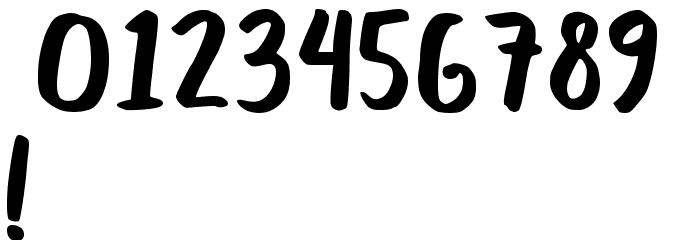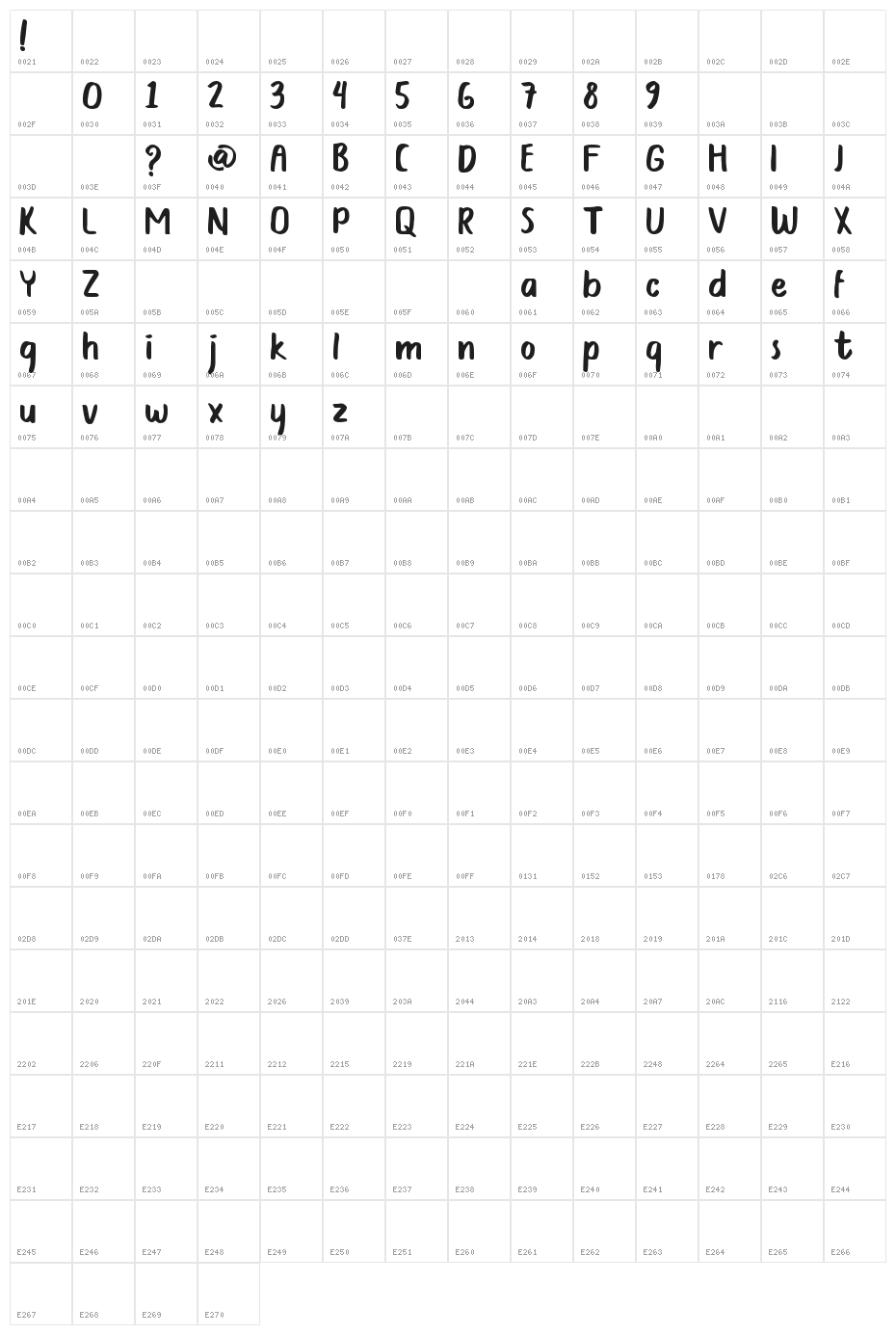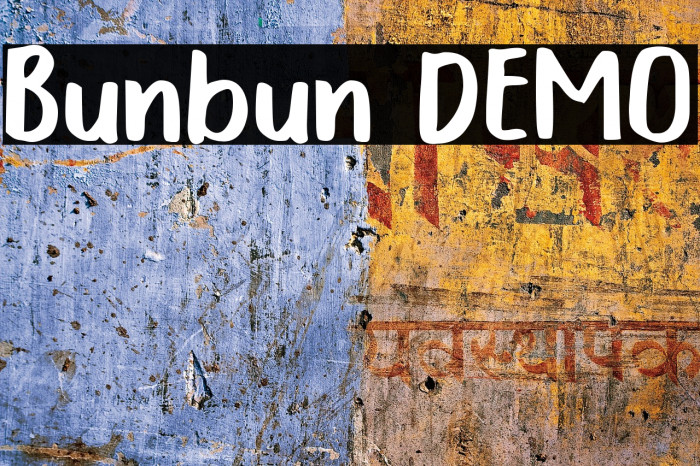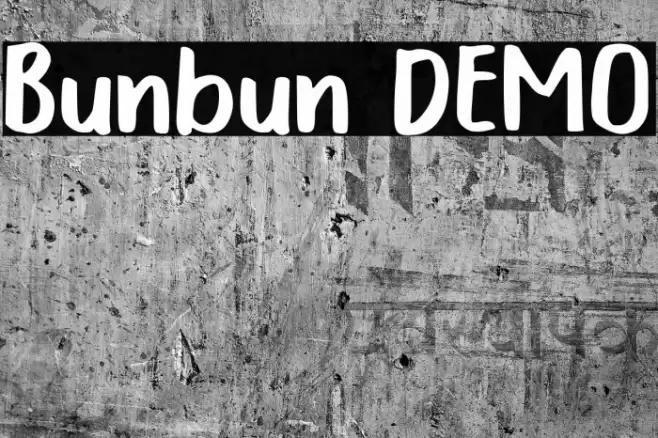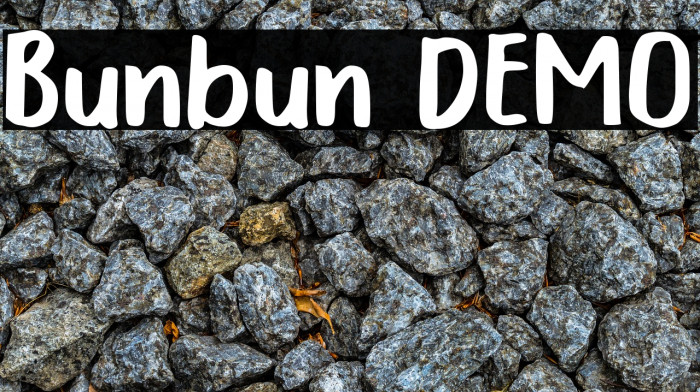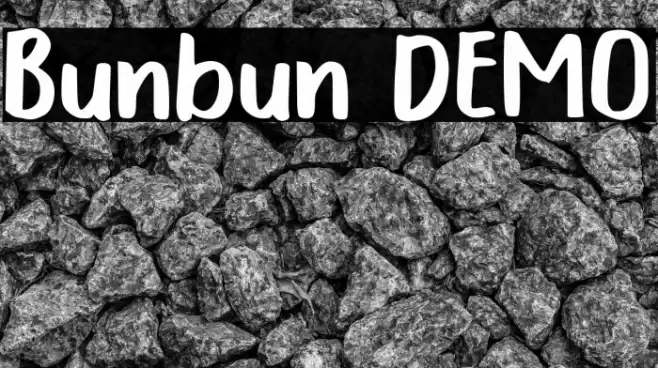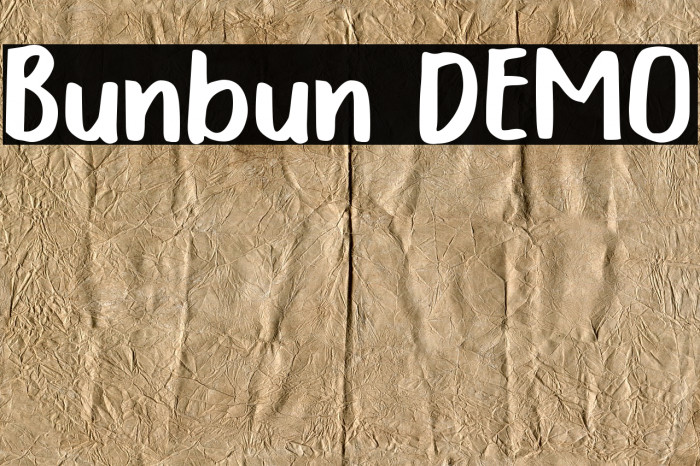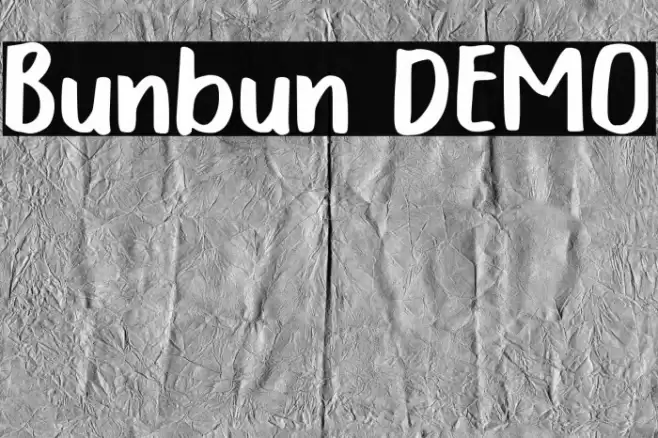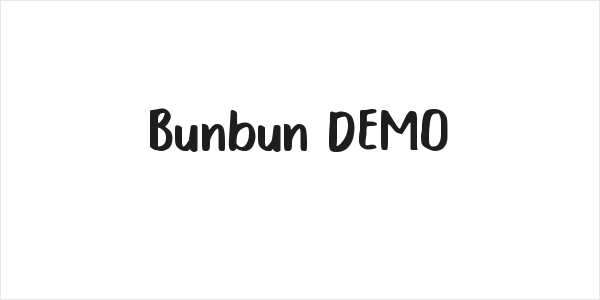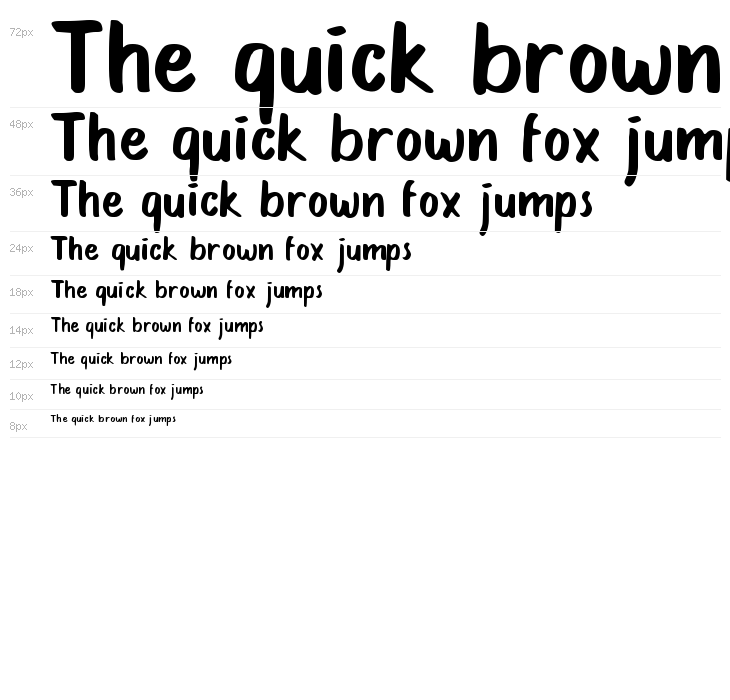
Bunbun DEMO Font
Bunbun DEMO Description
This playful and bold font features a handwritten style with a casual and friendly appearance. The characters are rounded and slightly irregular, giving it a whimsical and approachable feel. The strokes are thick and consistent, providing a strong visual presence. The uppercase and lowercase letters maintain a cohesive look, while the numbers and punctuation integrate seamlessly with the overall design. This font is perfect for projects that require a touch of personality and charm, such as children's books, playful branding, or creative invitations.
| Proposed Projects | Ideal for children's books, playful branding, creative invitations, and casual posters. |